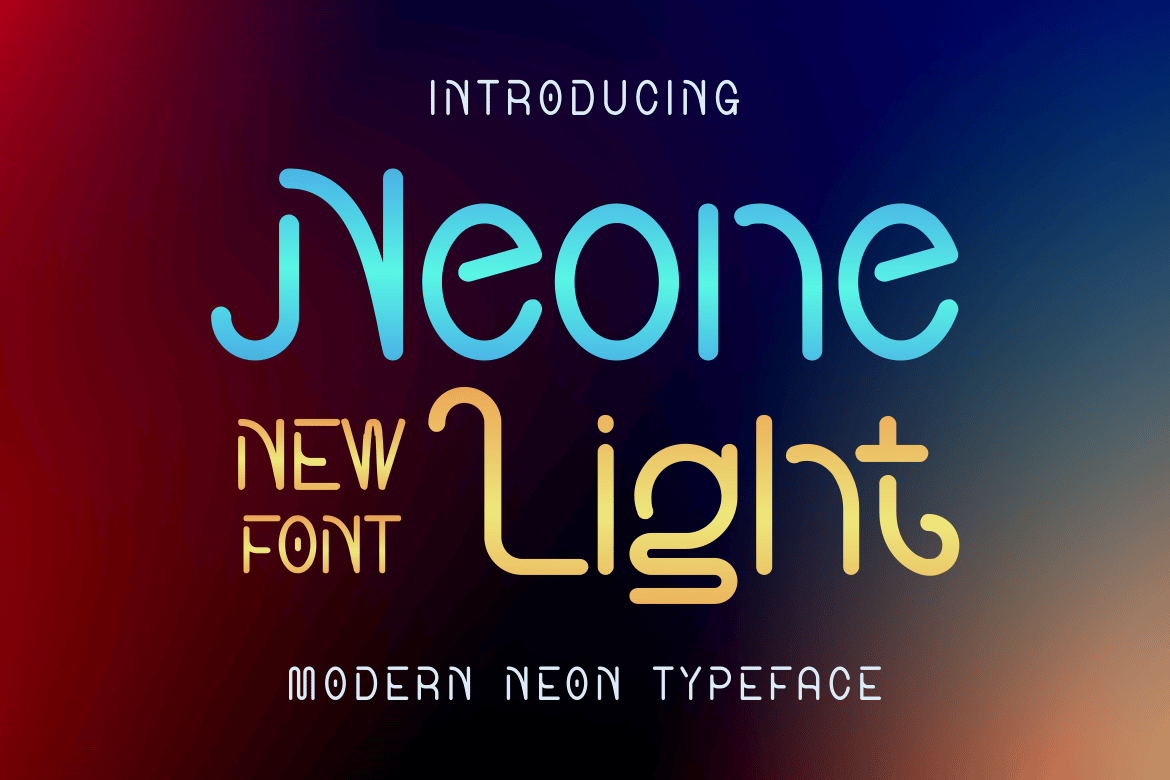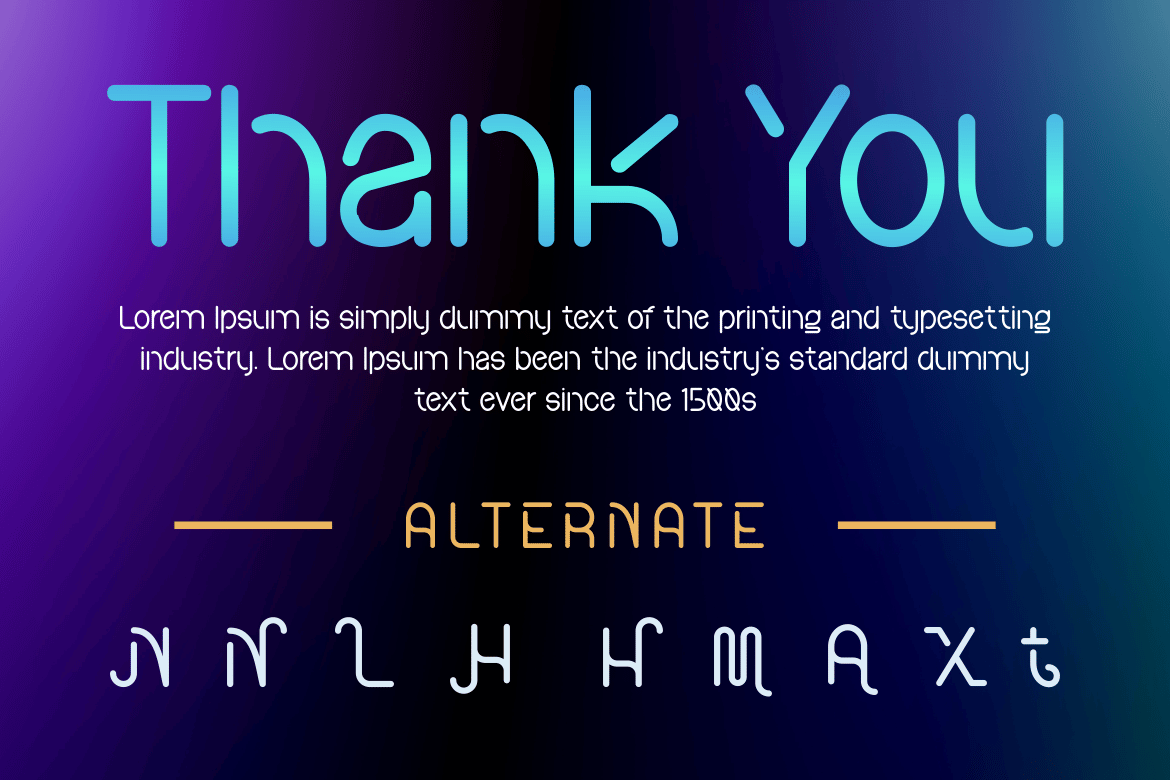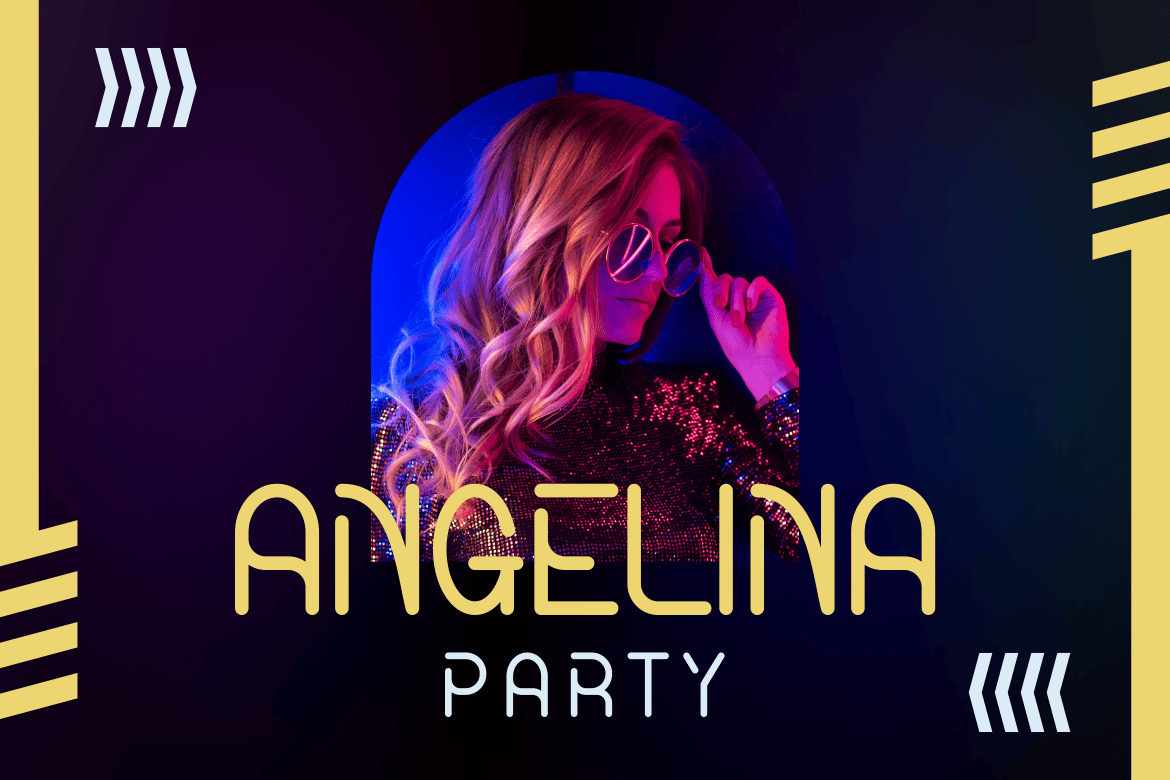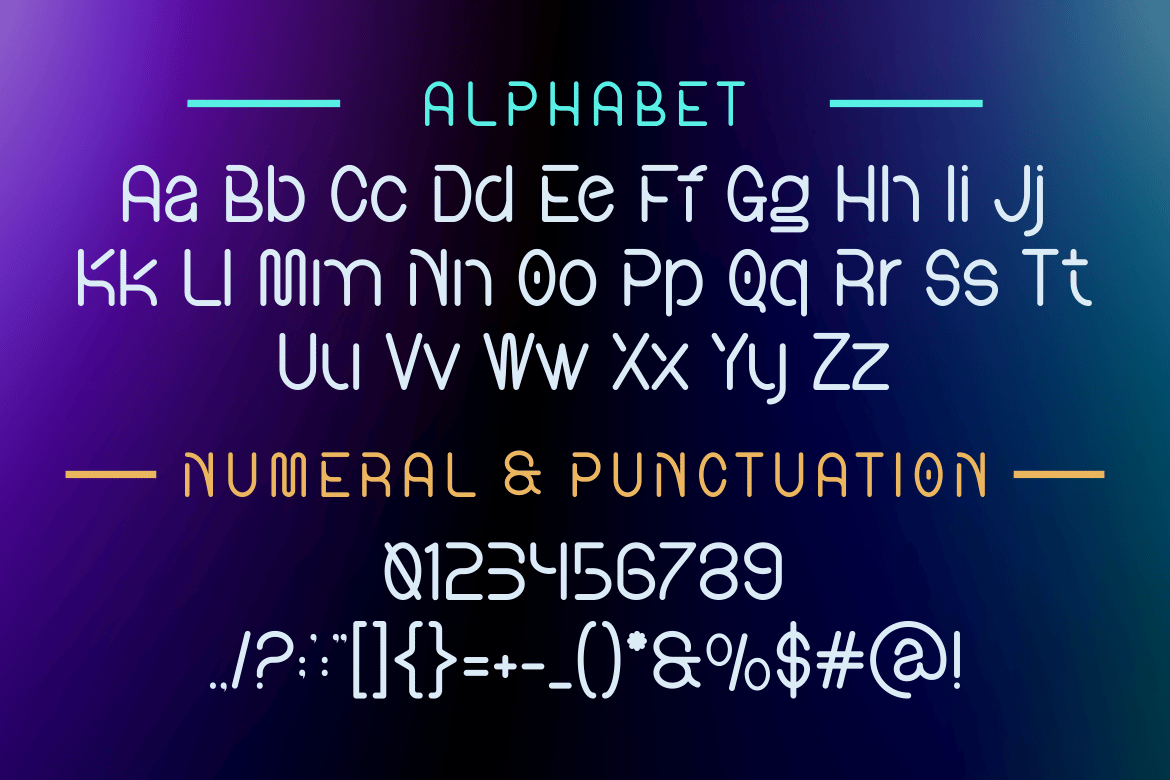
Neone Light – Modern Neon Font
Introducing our new product Neone Light Font – Modern Font
Neone Light Font** – Modern Font is a bold and authentic display font. The font is suitable for any branding project like logo, t-shirt printing, Product and many more. outstanding in a wide range of contexts.